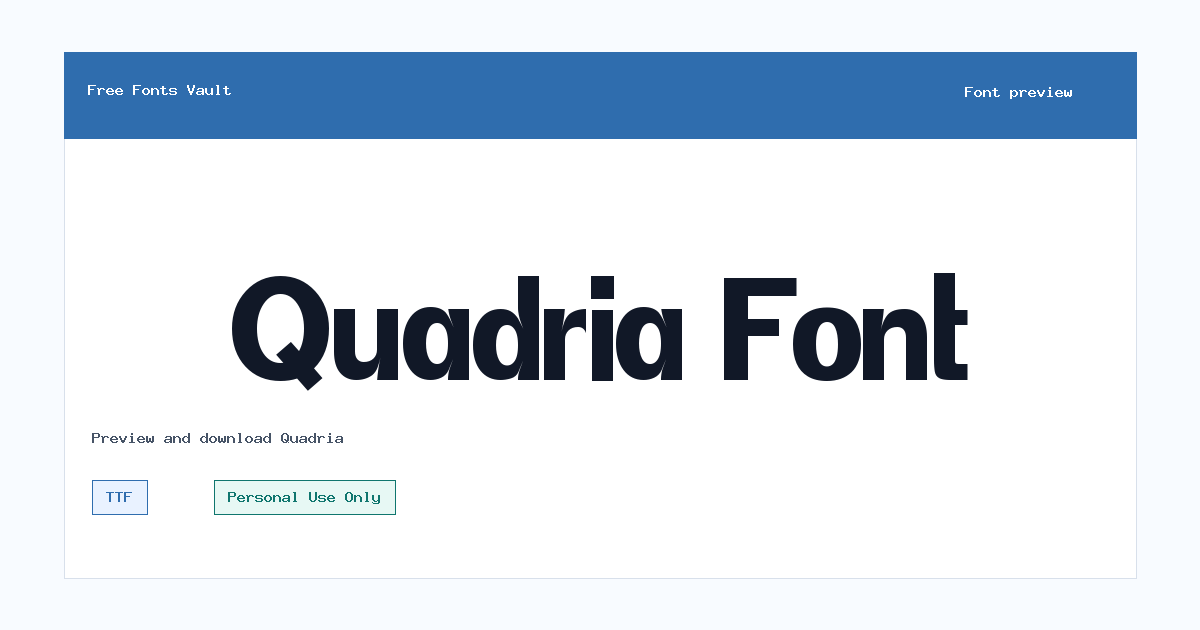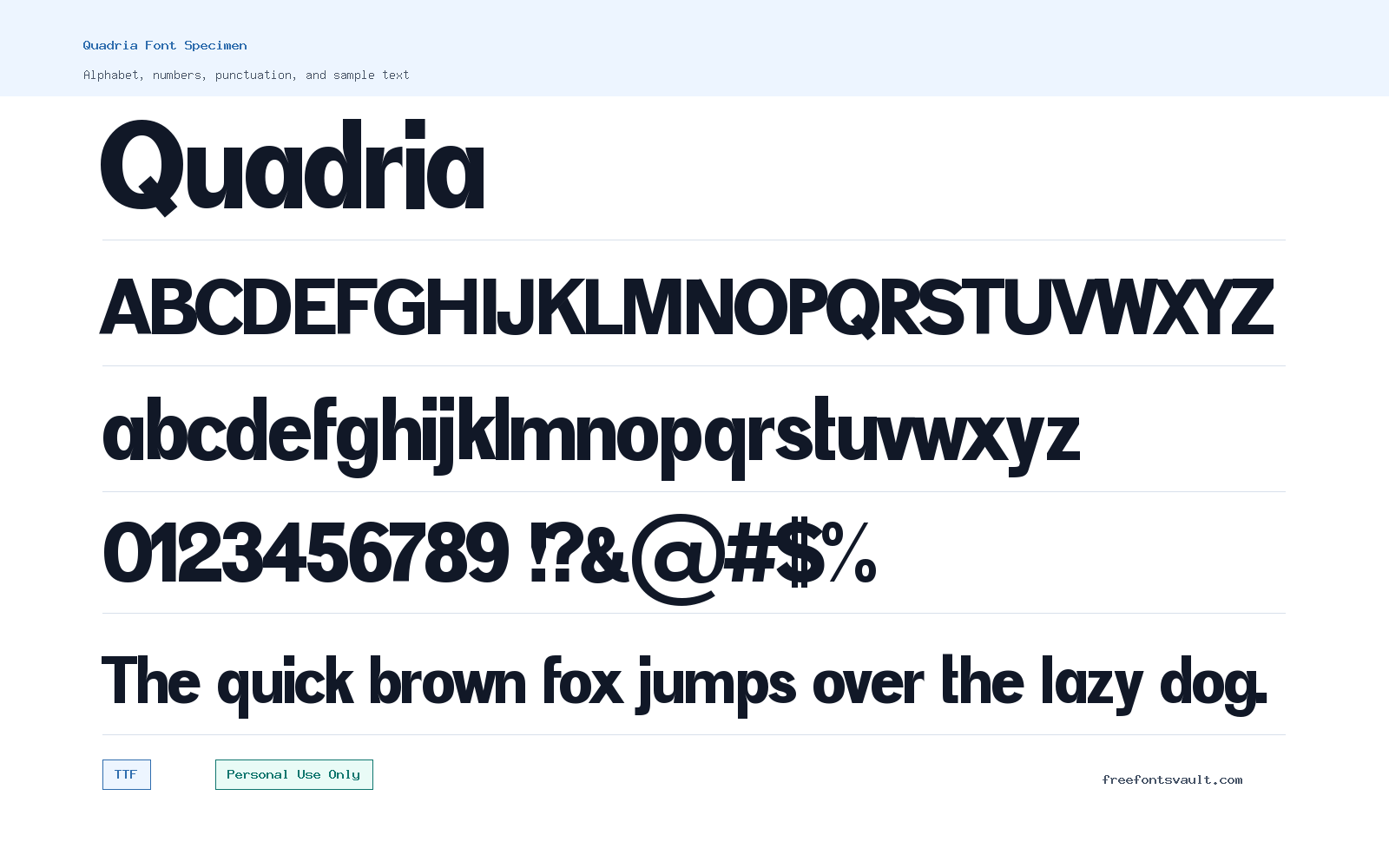
Quadria
Quadria is a geometric sans serif font family with regular and italic TTF files. Its clean, structured look makes it a good choice to test for display text, short headings, posters, social graphics, and other designs where a firm modern shape works better than a soft or decorative style.
Quadria leans toward a neat geometric sans serif style, so it is most useful when you want letters that feel orderly and deliberate. The regular style is the safer starting point for titles, labels, and short blocks of text, while the italic file gives you a matching slant for emphasis, secondary lines, or contrast inside the same design. Because the family listed here includes regular and italic styles only, treat it as a compact display set rather than a full typographic system for complex layouts.
• Geometric sans serif styling suited to short display text
• Headlines, poster titles, and social media graphics
• Logo drafts, packaging mockups, labels, and short interface text
Start with the regular style for the main words and use the italic style sparingly for emphasis. Keep lines short, give the letters enough spacing, and avoid setting long paragraphs until you have tested readability at the final size. If Quadria feels too rigid beside other elements, pair it with a neutral serif or a humanist sans serif for supporting text.
Is Quadria good for body text?
It is better to test it first. Quadria is most practical for short display text, headings, labels, and mockups. For long reading, use the preview with real paragraph text before committing.